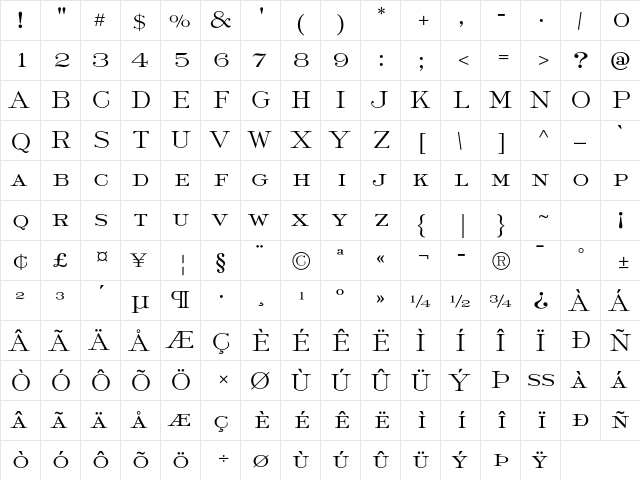
Light Roman Std Regular
Design Context for Light Roman Std Typeface
Light Roman Std offers clean, dependable letterforms without strong stylistic allegiance, making it a practical choice for designers who need flexibility. Its slender proportions lend an understated elegance to any composition.